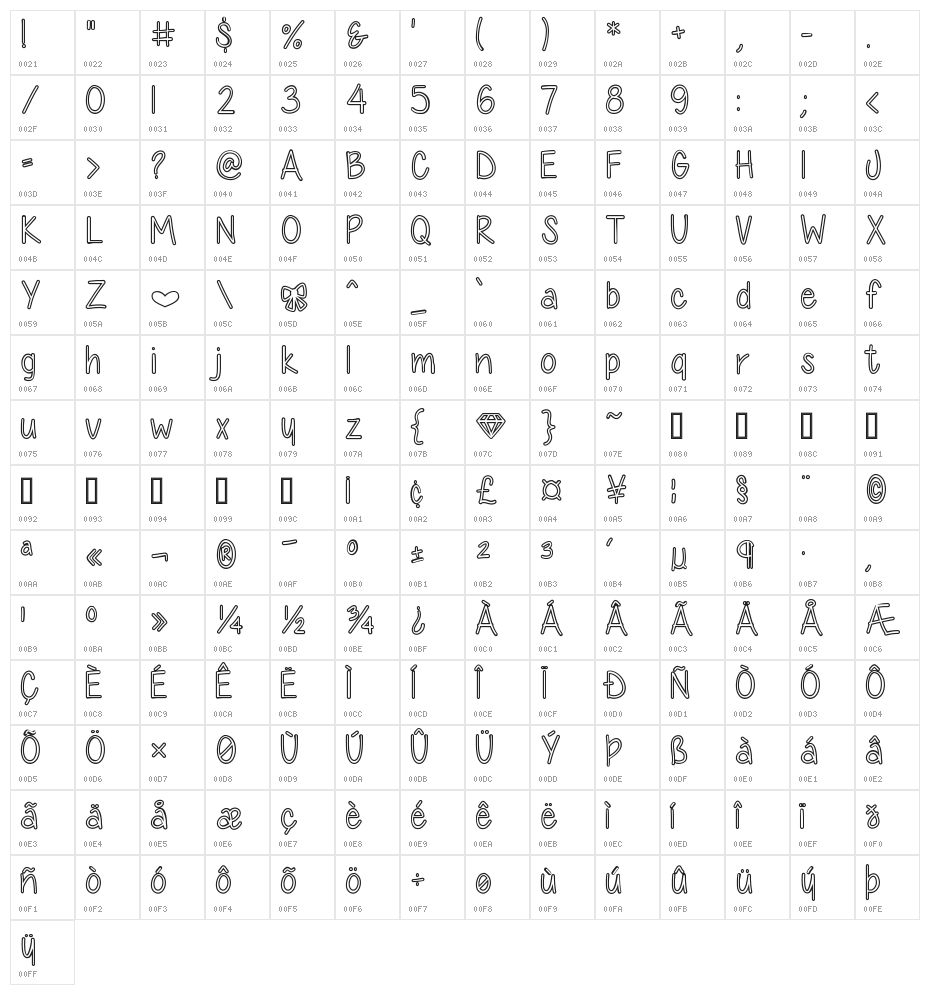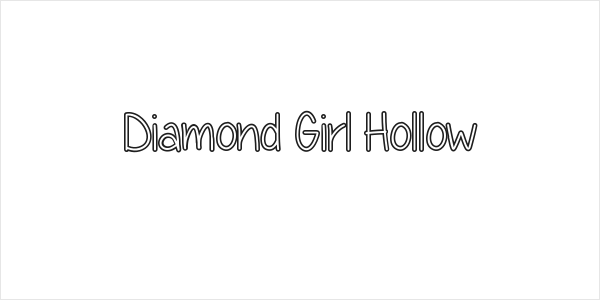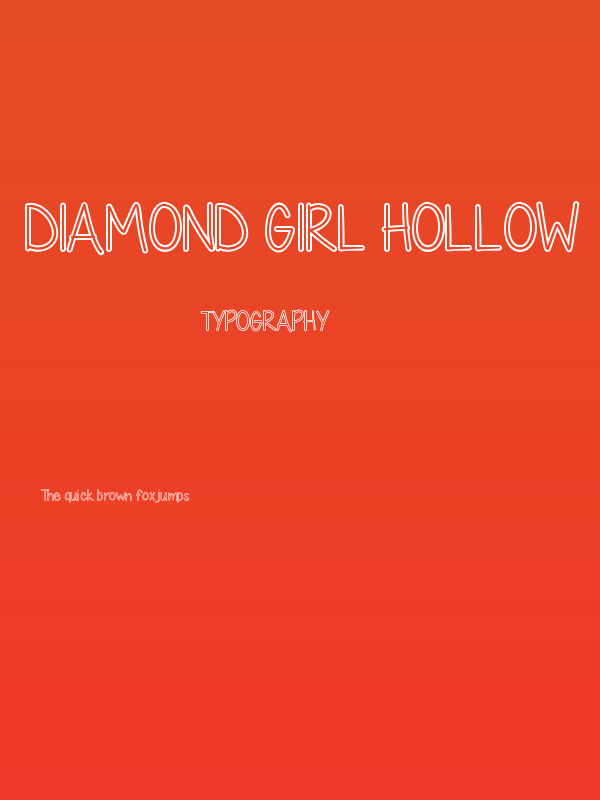
Diamond Girl Hollow Font
Diamond Girl Hollow Description
This font features a playful, hollow design with rounded edges and a hand-drawn aesthetic. The characters are outlined, creating a light and airy feel that is both approachable and whimsical. The uppercase and lowercase letters maintain a consistent style, with smooth curves and a casual, friendly appearance. Numbers and special characters are included, matching the overall design with their open, outlined form. This font is ideal for projects that require a fun and informal touch, such as children's books, greeting cards, or playful branding materials.
| Overall Style | Playful, Whimsical, Casual |
| Proposed Projects | Ideal for children's books, greeting cards, playful branding, and informal invitations. |